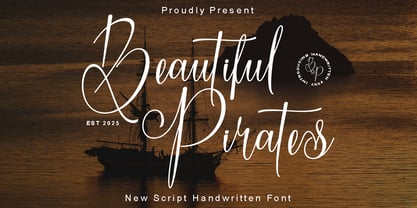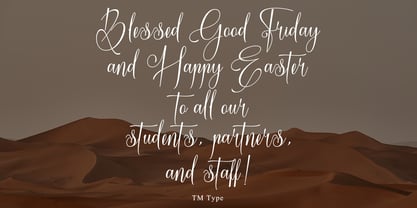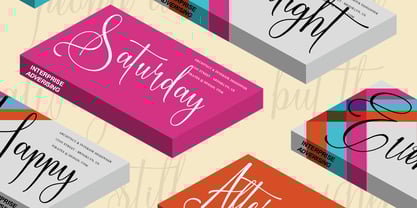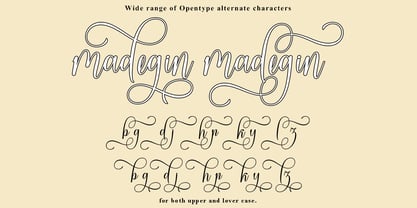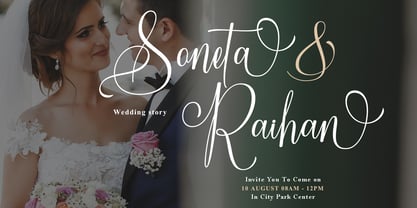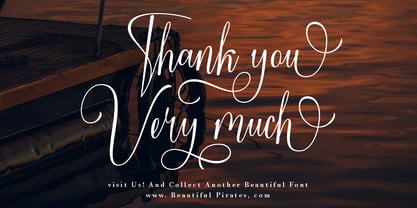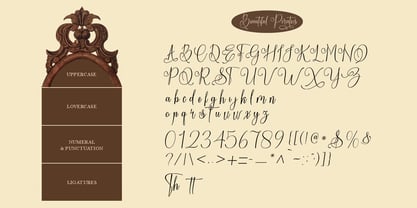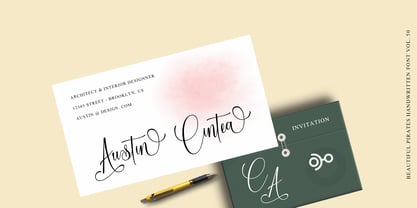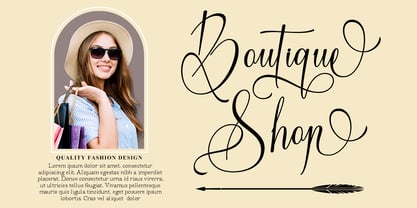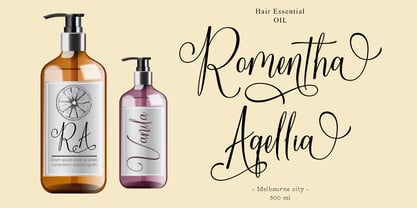
Beautiful Pirates
by TM Type
The Beautiful Pirates Font Family was designed by Teuku Bustami and published by TM Type. Beautiful Pirates contains 1 styles. More about this family
Beautiful Pirates is a textured font with a bold style and contemporary design approach, naturally handcrafted, perfect for use in title designs such as clothing, invitations, book titles, stationery designs, quotes, branding, logos, greeting cards, t-shirts, packaging designs , posters, and more.
Beautiful Pirates font Complete with uppercase and lowercase letters, and multi-language support, numbers, punctuation, and some perfect ligatures and comes with several lowercase alternatives that will make your designs more interesting.